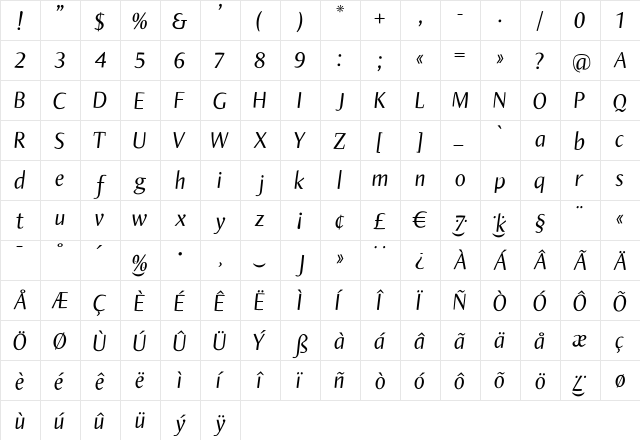
OliJoSans Regular
Design Context for OliJoSans Typeface
OliJoSans offers clean, dependable letterforms without strong stylistic allegiance, making it a practical choice for designers who need flexibility.